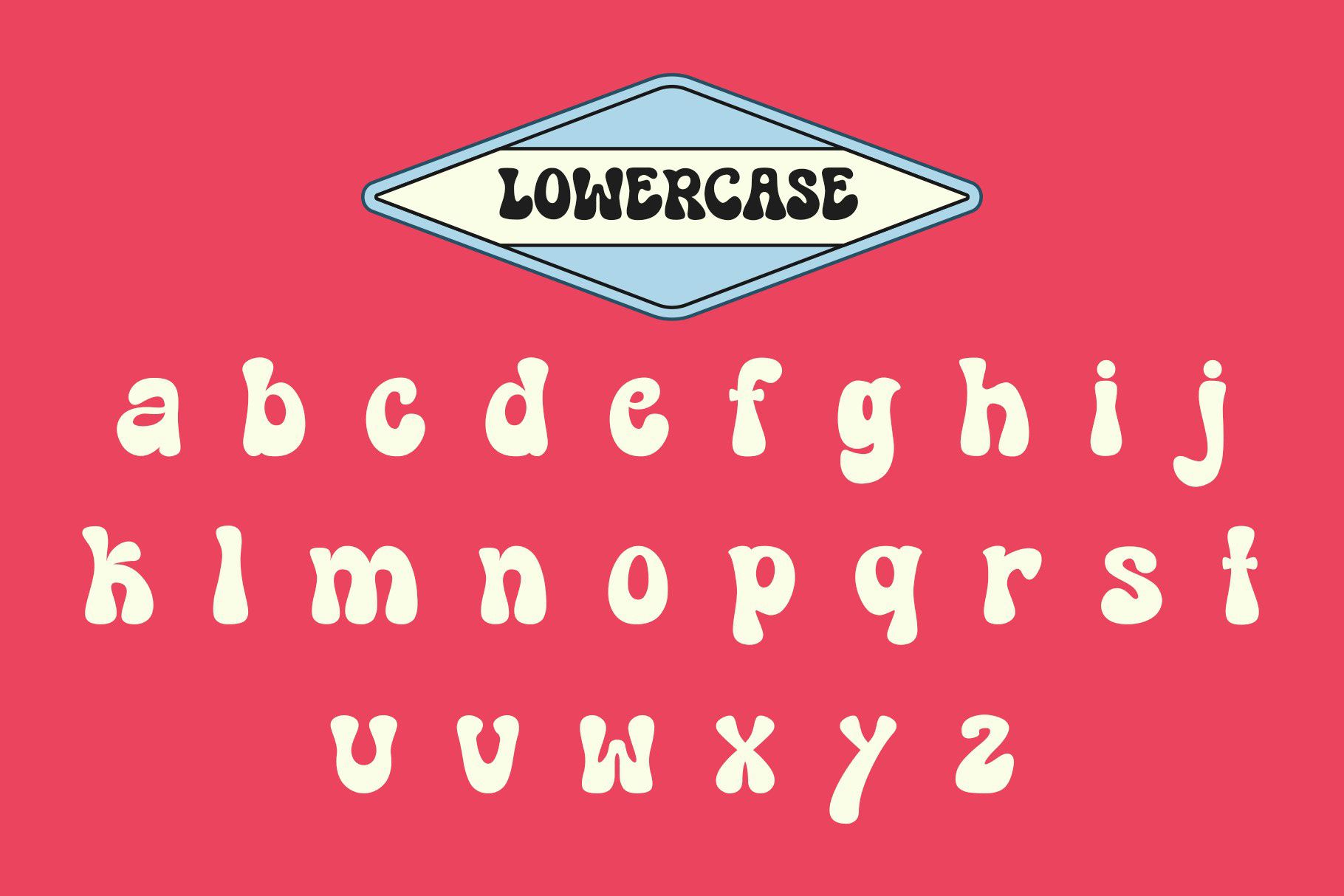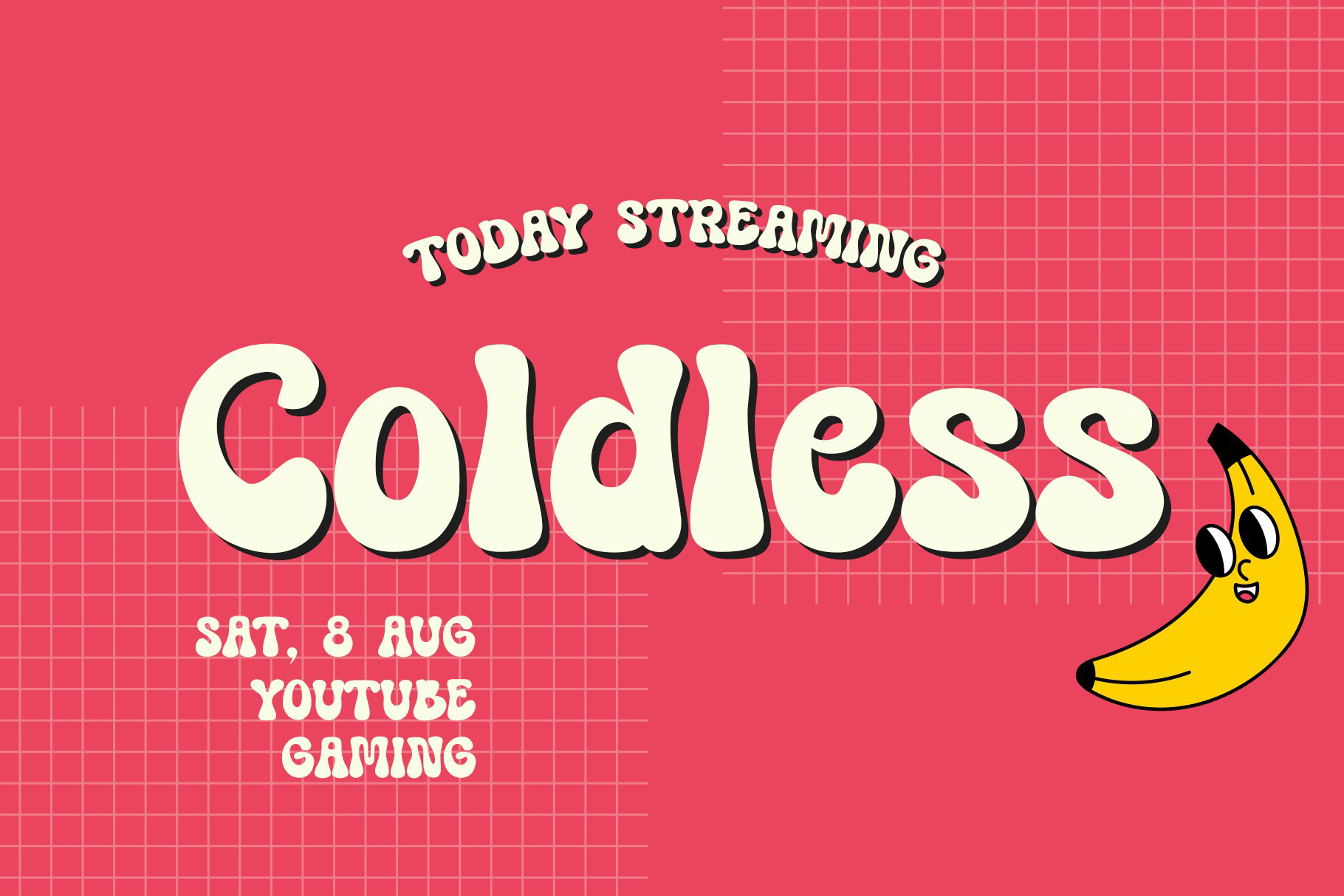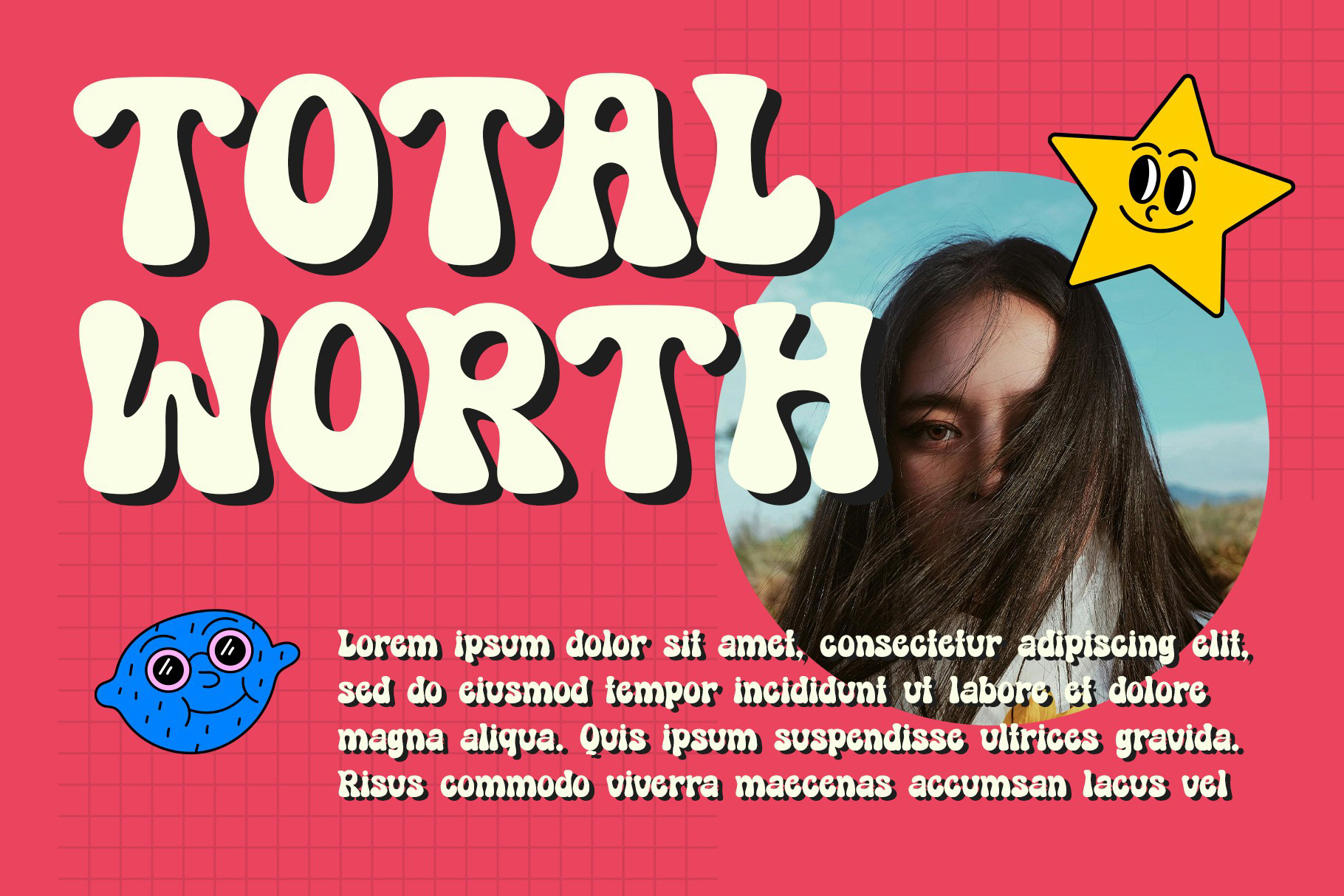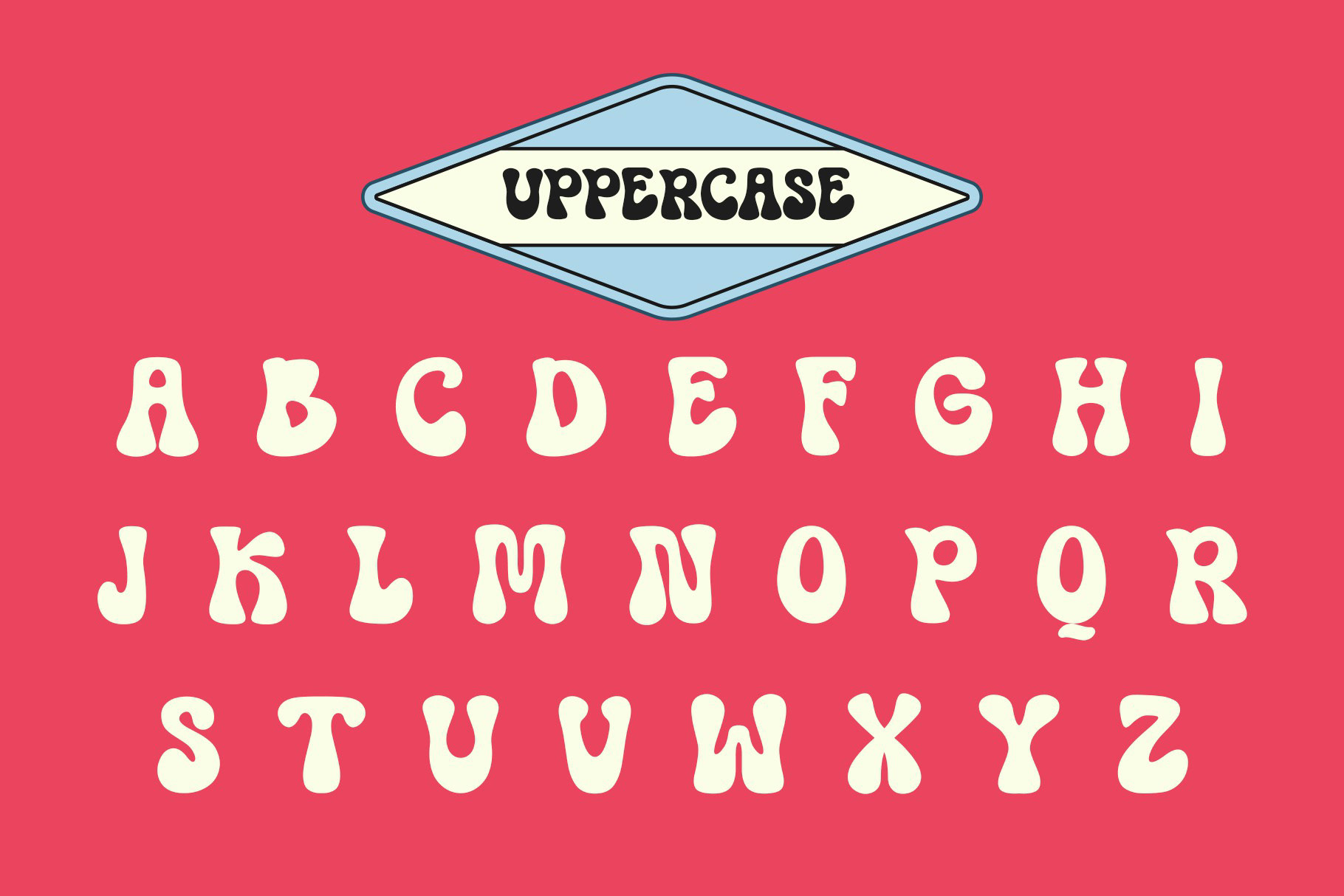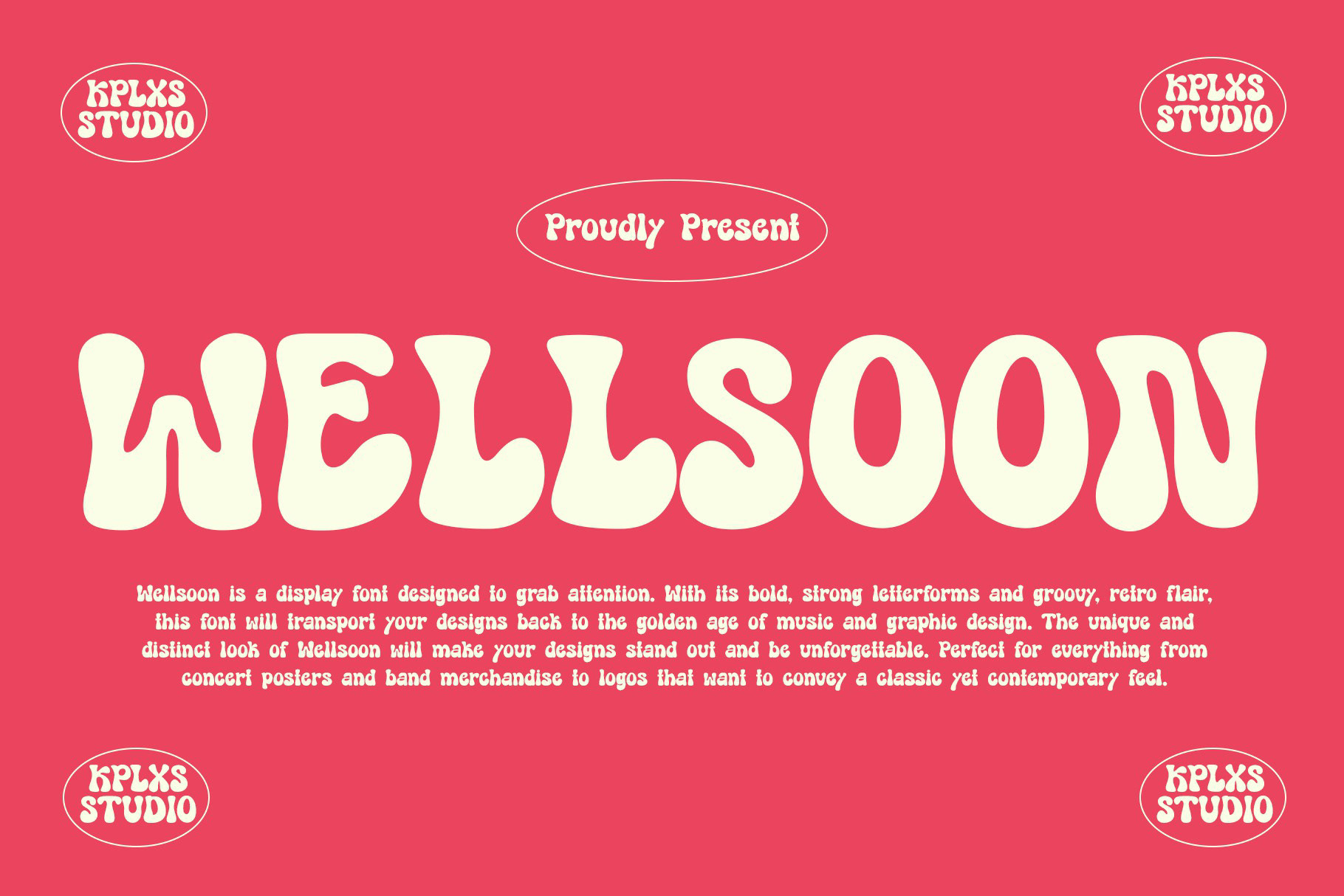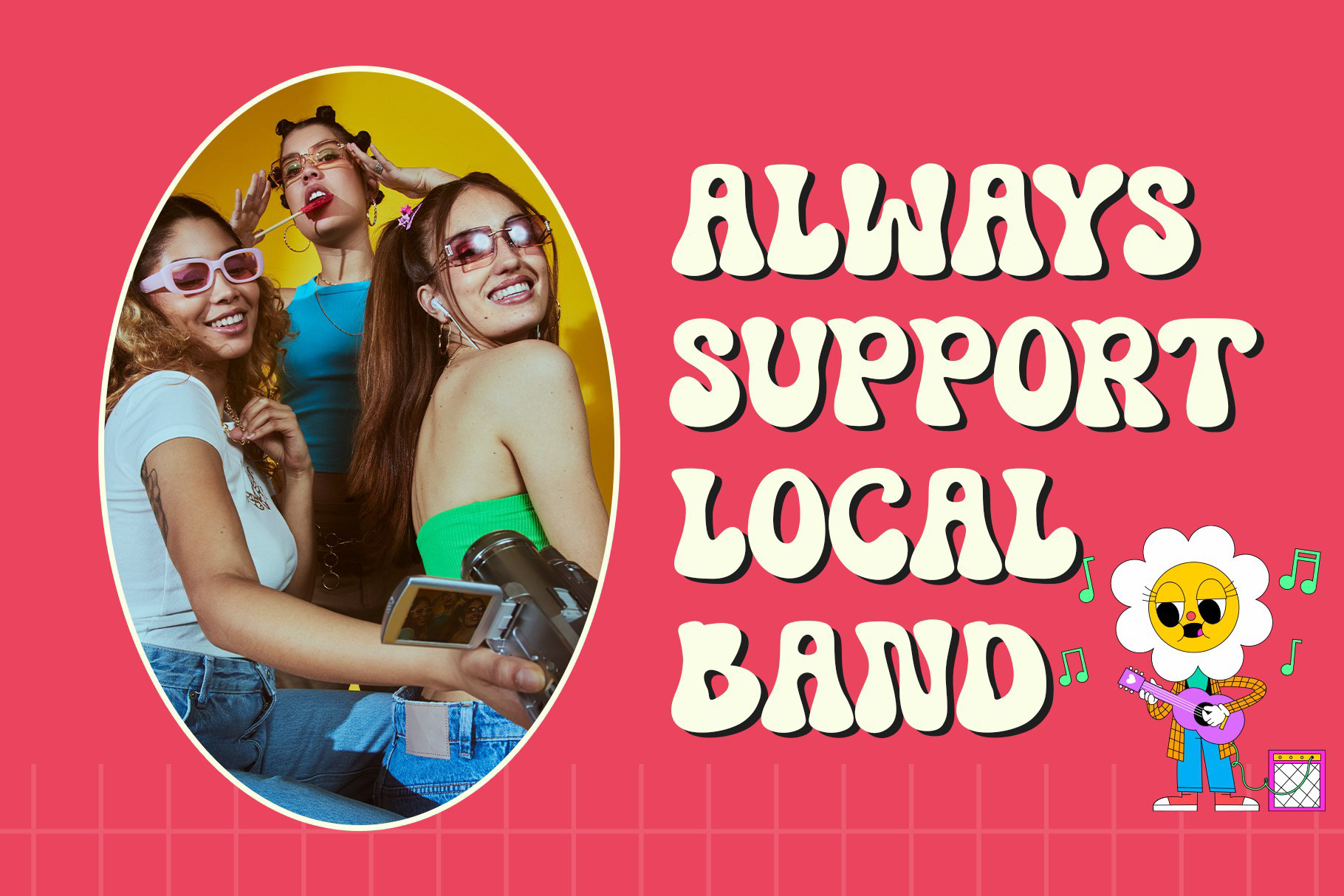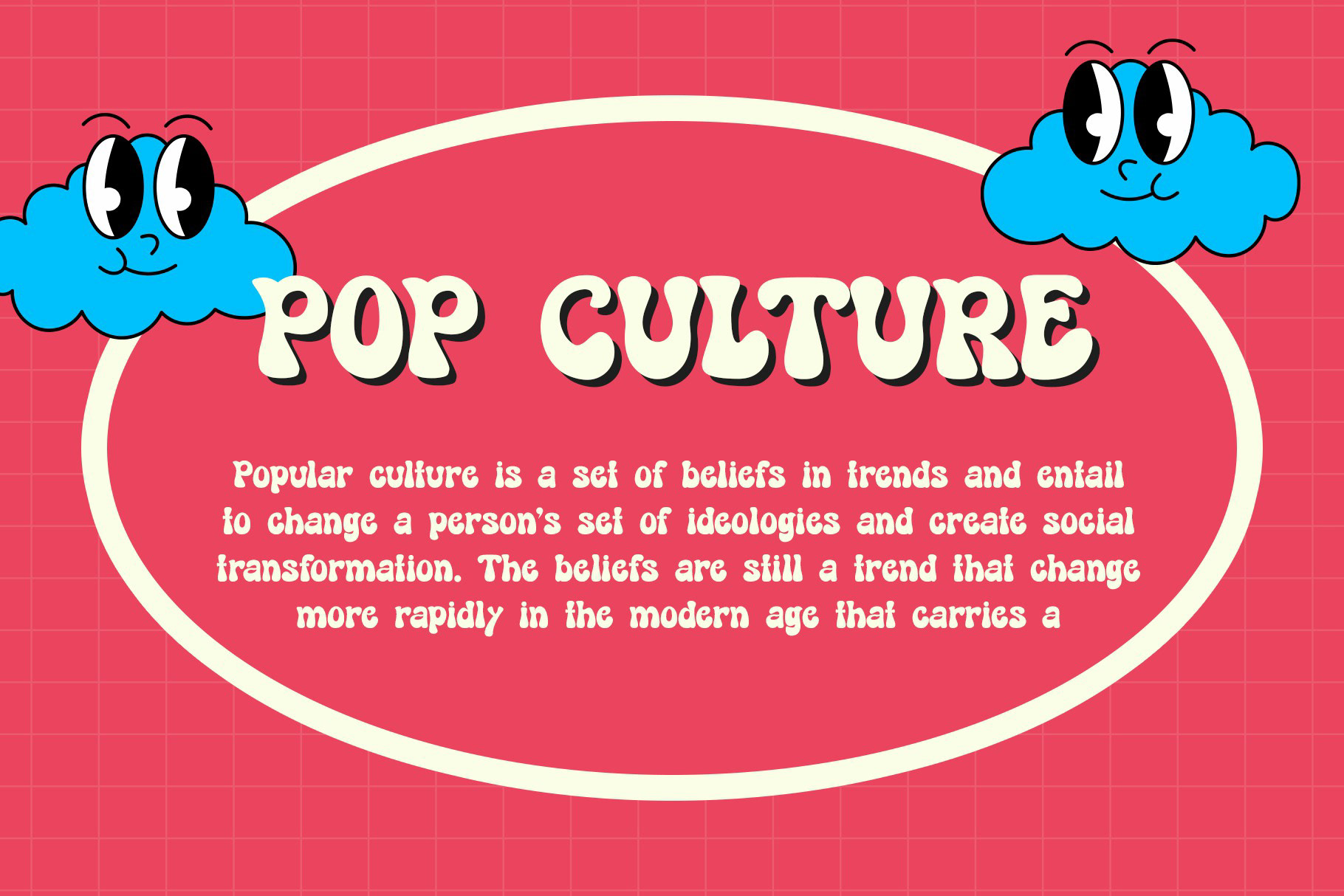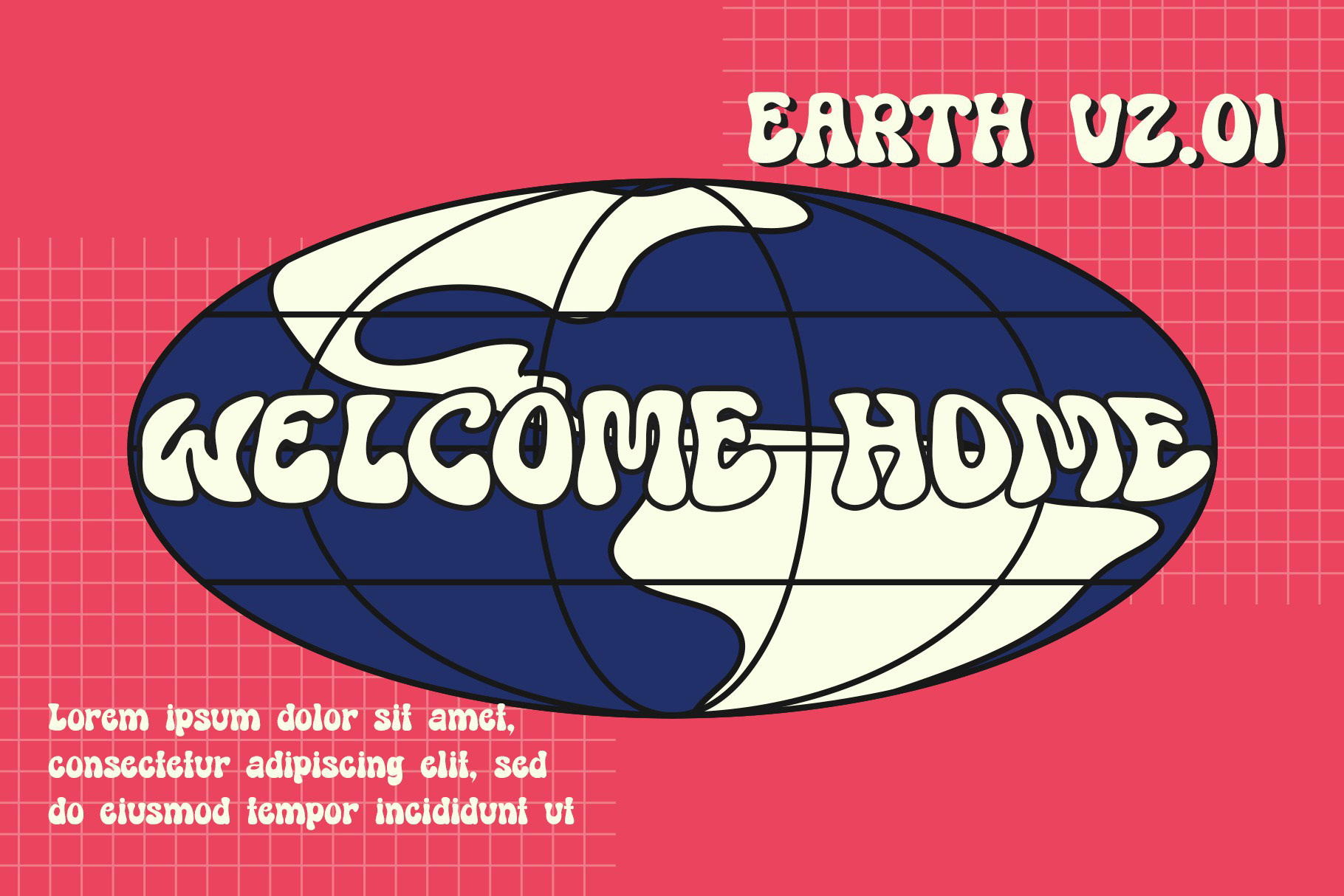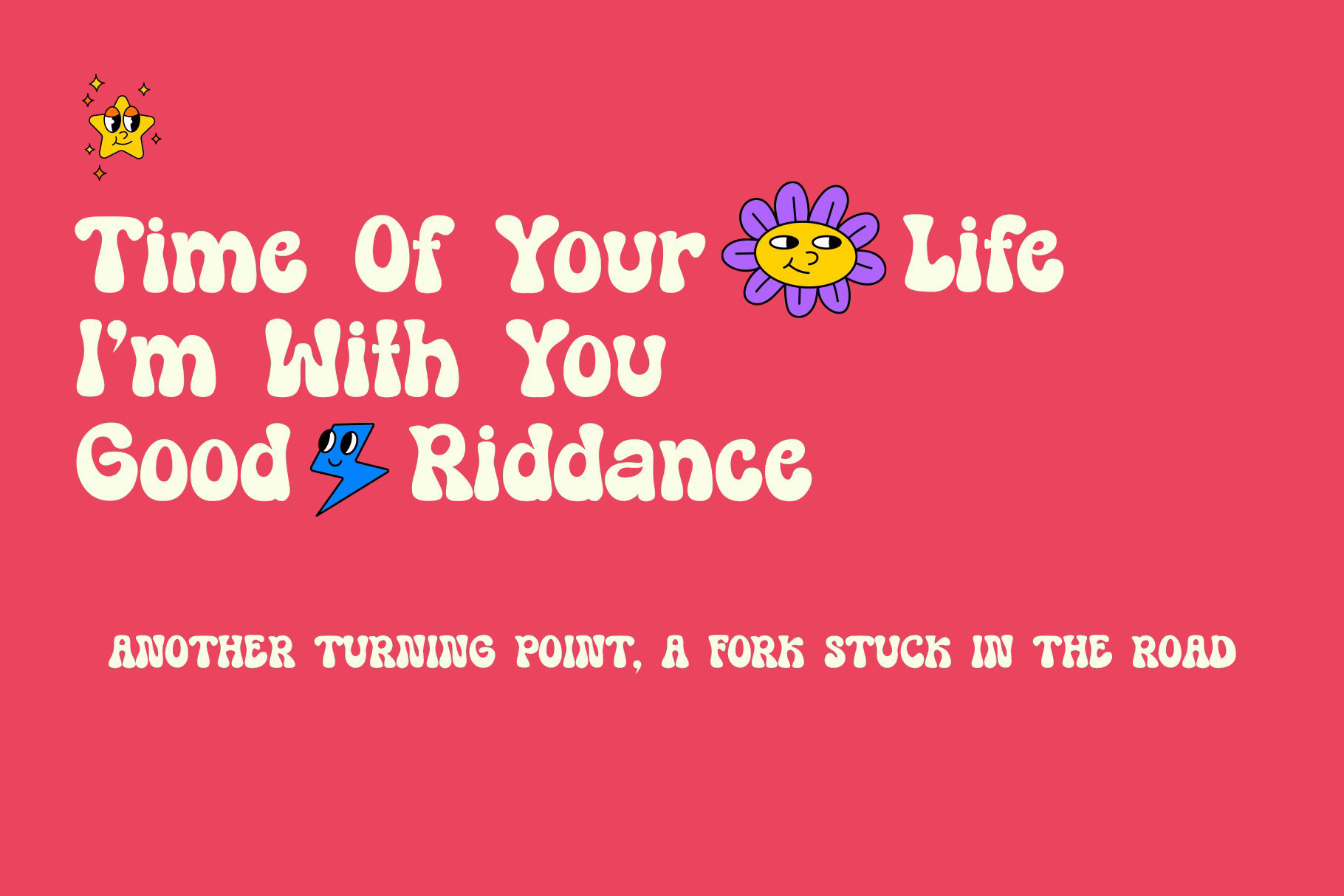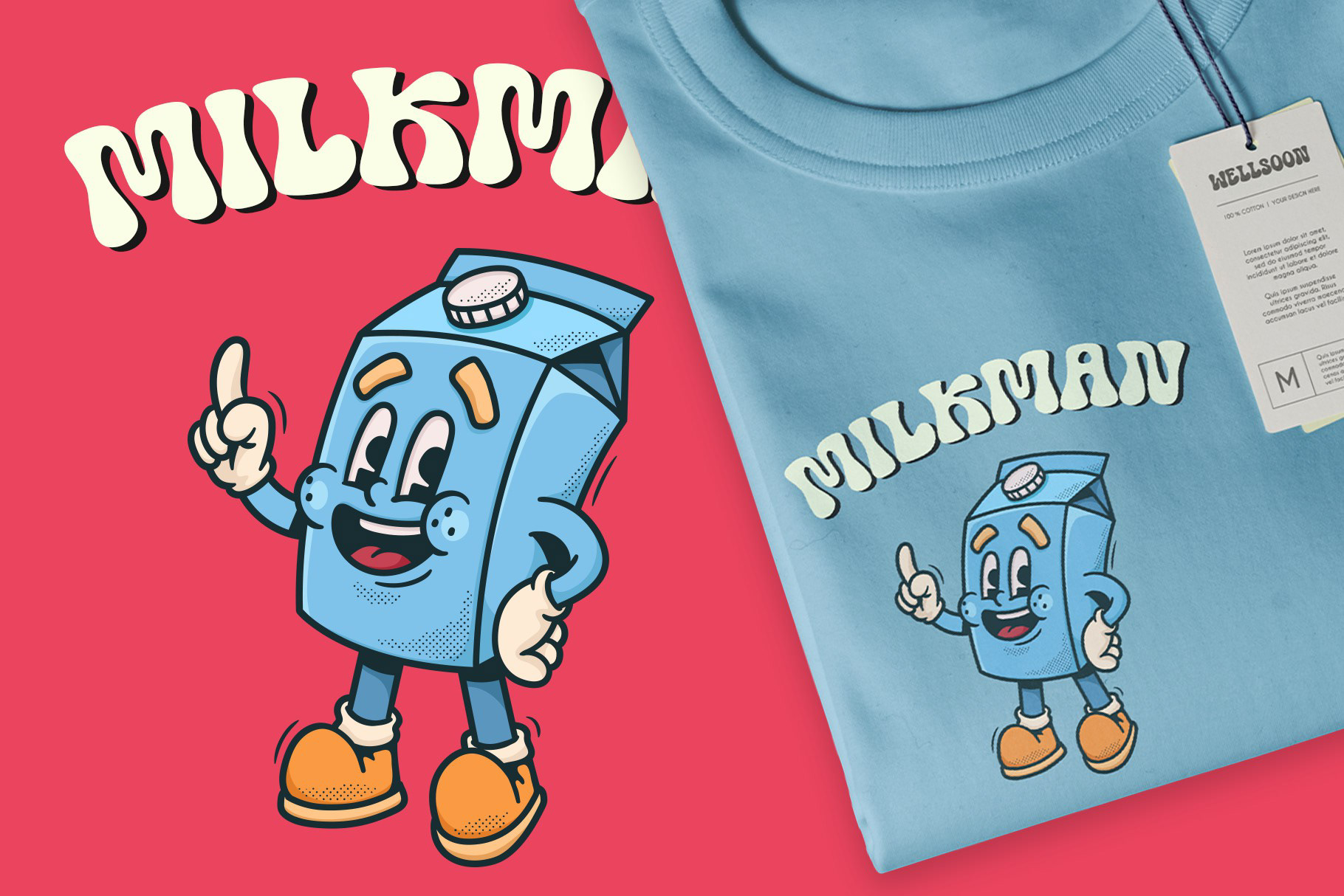
Well Soon - Free Retro Bubble Display Font
Say hello to Well Soon, a retro-inspired bubble display font designed to bring a playful and cheerful vibe to your creative projects. With its bold, curvy shapes and nostalgic charm, this font is perfect for anyone looking to add personality and fun to their designs.
Whether you’re working on branding, posters, social media graphics, apparel, packaging, or quirky headlines, Well Soon delivers a unique aesthetic that stands out. The smooth, rounded letters ensure excellent readability while maintaining a bold and dynamic character that grabs attention.
Why Choose Well Soon?
- Retro-Inspired Style: A throwback to groovy, vintage vibes with a modern twist.
- Playful and Fun: Perfect for cheerful, lighthearted designs.
- Versatile Use: Ideal for branding, posters, apparel, packaging, and digital designs.
- High-Quality Design: Smooth and professionally crafted for seamless use.
- Multilingual Support: Covers a wide range of languages for global projects.
Perfect For:
- Quirky branding projects
- Creative social media posts
- Music festivals and event posters
- Apparel designs with a vintage touch
- Packaging that stands out